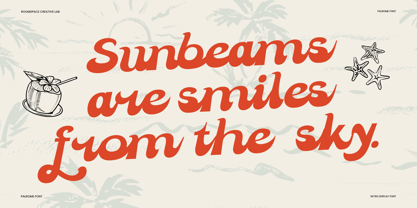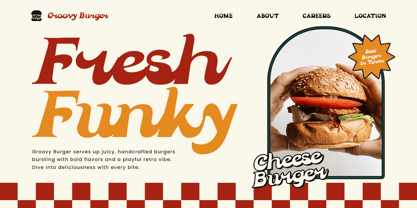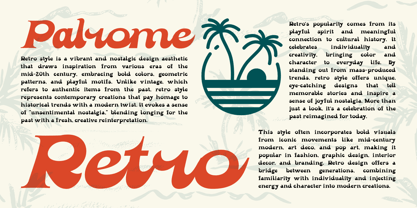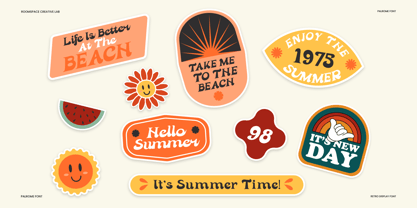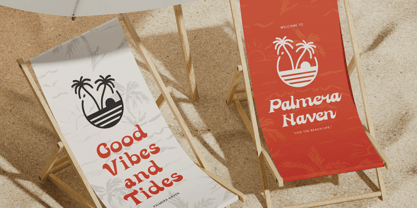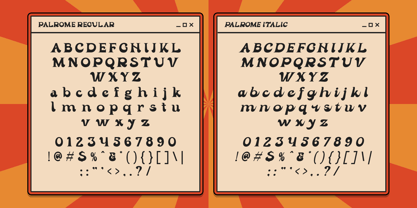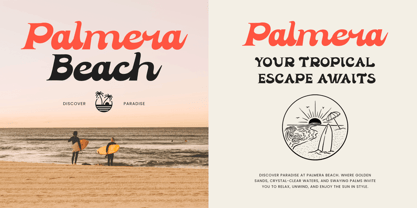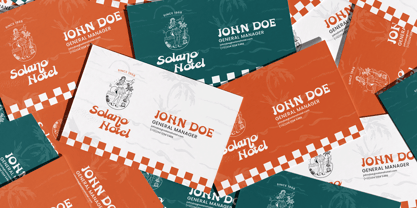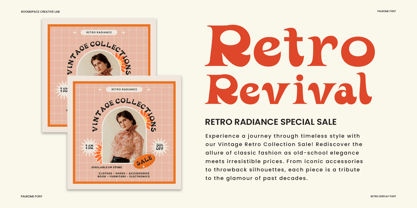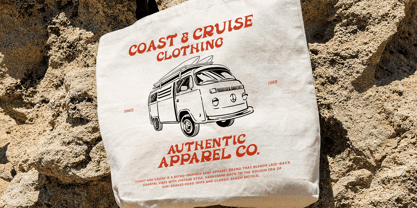
Palrome
by Jafar07
The Palrome Font Family was designed by Bakhrudin Ja'far and published by Jafar07. Palrome contains 2 styles.
Palrome is a bold retro display font inspired by the groovy vibes of the 70s and 80s. With playful curves and whimsical details, Palrome captures the perfect balance between nostalgic charm and modern aesthetics. It’s designed to make your designs stand out with a strong, artistic, and vintage-inspired personality. Palrome comes in two styles Regular and Italic giving designers flexibility for creative exploration. Each letter features thick strokes, subtle wave-like contours, and perfectly tuned kerning for professional readability. Whether used big and bold or in smaller decorative accents, Palrome maintains a smooth and stylish rhythm that enhances any layout with confidence. Perfect for logos, packaging, posters, headlines, café branding, editorial layouts, and retro-themed social media, Palrome brings nostalgic flair with a contemporary twist. Give your brand a bold and timeless look download Palrome today and make your next design radiate vintage elegance and groovy character.